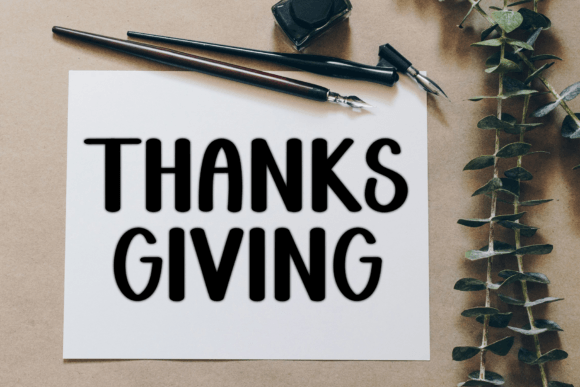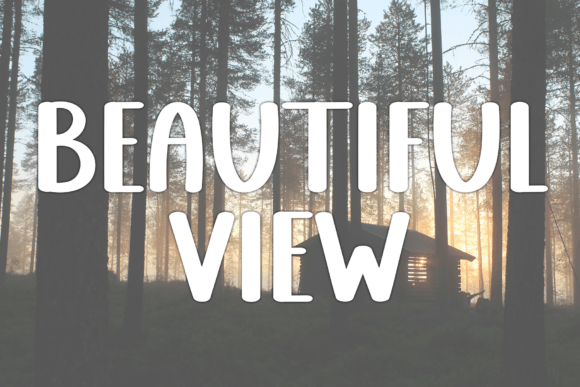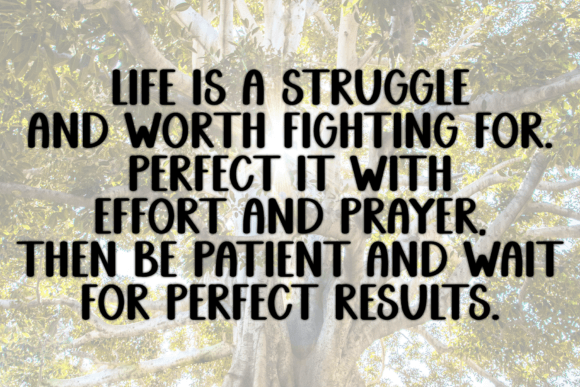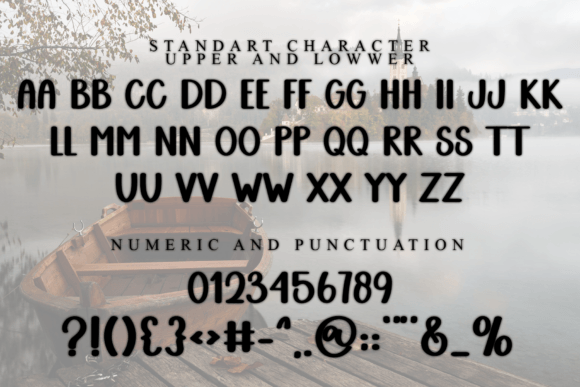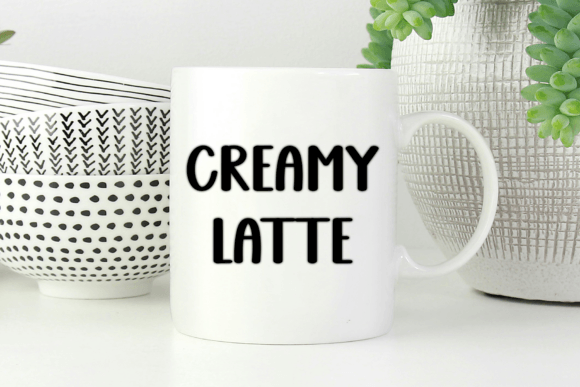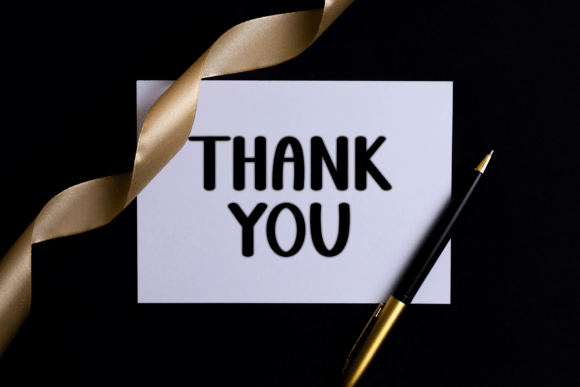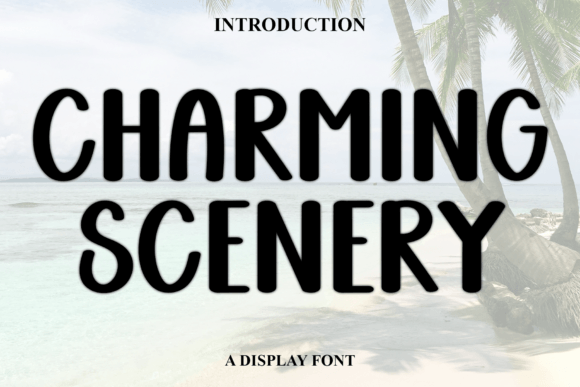
Introducing Charming Scenery Font: Elevate Your Designs with a Touch of Elegance
In the world of design, fonts play a crucial role in conveying the message and aesthetic of a project. A well-chosen font can make all the difference, turning a good design into a great one. If you’re a designer or crafter looking for a font that combines modernity with charm, look no further than Charming Scenery Font. This bold sans serif font is designed to add a touch of elegance to any design, making it perfect for headlines, titles, and more.
Clean and Modern Look
Charming Scenery Font boasts a clean and modern look that is sure to catch the eye. Its sans serif design ensures that the letters are clear and easy to read, even at smaller sizes. This makes it an excellent choice for designers who want to create visually appealing text without sacrificing legibility. The font’s modern aesthetic also ensures that it will fit right in with contemporary design trends, making it a great choice for projects that require a fresh look.
Strong Letters for Maximum Impact
One of the standout features of Charming Scenery Font is its strong letters. The bold design of each letter ensures that they stand out, making it perfect for headlines or titles where you want to grab the reader’s attention. The font’s strength lies in its ability to convey confidence and authority, making it an excellent choice for designers who want to create a lasting impression.
Charming Scenery Font is incredibly versatile, making it suitable for a wide range of projects. Whether you’re working on a logo, brochure, website, or social media graphics, this font is sure to add a touch of charm to your design. Its clean and modern look ensures that it will fit in with a variety of design styles, from minimalist to more elaborate designs.
Why Choose Charming Scenery Font?
So, why should you choose Charming Scenery Font for your next project? Here are just a few reasons:
• Easy to Read: The font’s clean and modern design ensures that it’s easy to read, even at smaller sizes.
• Perfect for Headlines: The bold design of each letter makes it perfect for headlines or titles where you want to grab the reader’s attention.
• Versatile: Charming Scenery Font is suitable for a wide range of projects, from logos to websites and social media graphics.
• Modern Aesthetic: The font’s modern look ensures that it will fit right in with contemporary design trends.
Tips for Using Charming Scenery Font
To get the most out of Charming Scenery Font, here are a few tips:
• Use it for Headlines: The font’s bold design makes it perfect for headlines or titles where you want to grab the reader’s attention.
• Pair it with Other Fonts: Charming Scenery Font works well with other fonts, so don’t be afraid to experiment with different pairings.
• Experiment with Colors: The font’s clean and modern design ensures that it will look great in a variety of colors, so don’t be afraid to experiment.
In conclusion, Charming Scenery Font is a bold sans serif font that is sure to add a touch of charm to any design. Its clean and modern look, strong letters, and versatility make it an excellent choice for designers and crafters looking for a font that combines modernity with elegance. Whether you’re working on a logo, brochure, website, or social media graphics, Charming Scenery Font is sure to elevate your design to the next level.